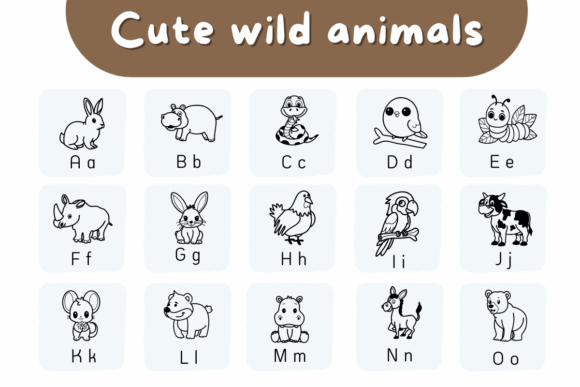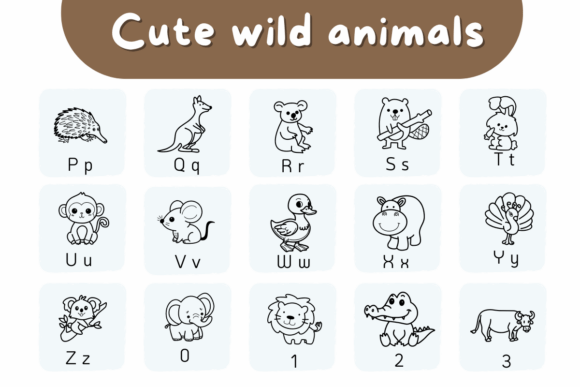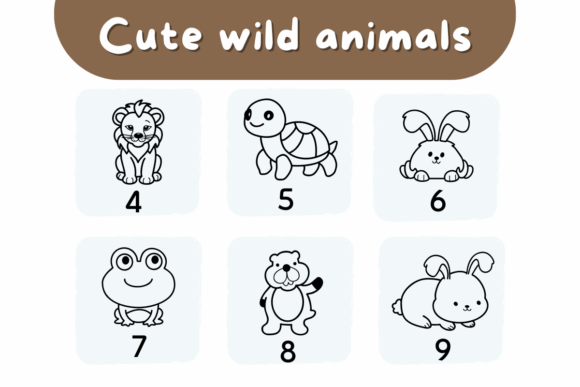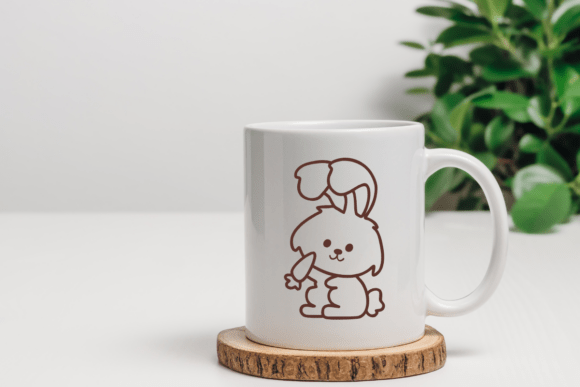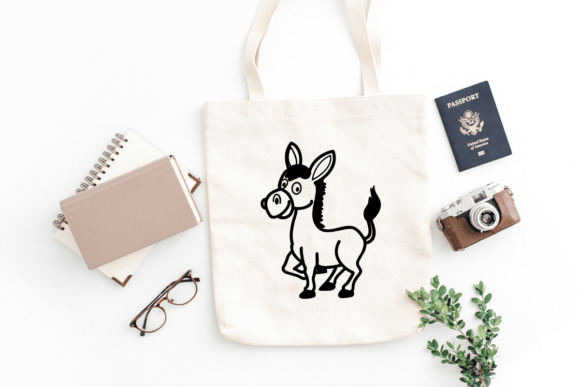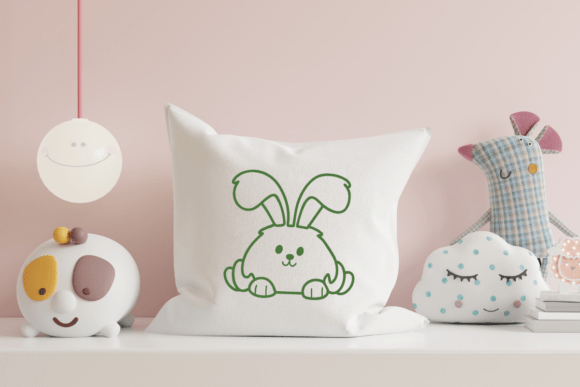
Cute Wild Animals Font: A Delightful Dingbat-Style Font for Designers and Crafters
Are you looking for a unique and playful font to add a touch of whimsy to your designs? Look no further than Cute Wild Animals Dingbats, a charming dingbat-style font that brings a delightful collection of illustrated wild animal characters to your fingertips. In this article, we’ll explore the features and benefits of this enchanting font, and how it can be used to elevate your designs, whether you’re a designer, crafter, or educator.
What is Cute Wild Animals Dingbats?
Cute Wild Animals Dingbats is a specially designed font that features a full set of glyphs mapped to letters (A–Z, a–z) and numbers (0–3). Each character is replaced by an adorable hand-drawn animal illustration, making this font ideal for children’s projects, educational resources, craft design, and playful branding. The font’s dingbat-style design allows you to easily add a touch of personality to your text, making it perfect for a wide range of applications.
Design & Aesthetic
The Cute Wild Animals Dingbats font delivers a charming visual experience, blending simplicity with expressive line art. Each glyph captures the essence of a different animal—rabbits, snakes, hippos, parrots, elephants, lions, crocodiles, and more—rendered in a clean, cartoonish style that balances friendliness and clarity. Some characters are styled with bold outlines, while others incorporate a fine-lined, sketch-like finish. The playful diversity of line weights enhances the handcrafted aesthetic, giving the font a unique and endearing feel.
- Full set of glyphs: Mapped to letters (A–Z, a–z) and numbers (0–3), ensuring a wide range of creative possibilities.
- Hand-drawn illustrations: Each character is carefully crafted to bring a unique and adorable animal illustration to your designs.
- Dingbat-style design: Easily replace text with delightful animal illustrations, adding a touch of whimsy to your projects.
- Clean and cartoonish style: A perfect balance of friendliness and clarity, making it suitable for a wide range of applications.
Uses and Applications
Cute Wild Animals Dingbats is an incredibly versatile font, suitable for a wide range of projects and applications. Here are some ideas to get you started:
- Children’s projects: Create engaging and interactive children’s books, educational resources, and activity sheets.
- Educational resources: Develop informative and visually appealing materials for schools, nurseries, and educational institutions.
- Craft design: Add a touch of personality to your craft projects, such as card making, scrapbooking, and DIY tutorials.
- Playful branding: Use the font to create a fun and playful brand identity for your business, product, or service.
Cute Wild Animals Dingbats offers a range of benefits for designers and crafters, including:
- Unique and playful designs: Stand out from the crowd with unique and eye-catching designs that are sure to delight.
- Time-saving: The font’s dingbat-style design saves you time and effort, allowing you to focus on other creative aspects of your project.
- High-quality illustrations: The hand-drawn illustrations are of exceptionally high quality, ensuring that your designs look professional and polished.
Cute Wild Animals Dingbats is a delightful dingbat-style font that is sure to bring a touch of whimsy and personality to your designs. With its full set of glyphs, hand-drawn illustrations, and clean cartoonish style, this font is perfect for children’s projects, educational resources, craft design, and playful branding. Whether you’re a designer, crafter, or educator, Cute Wild Animals Dingbats is an excellent choice for anyone looking to add a unique and playful touch to their work.